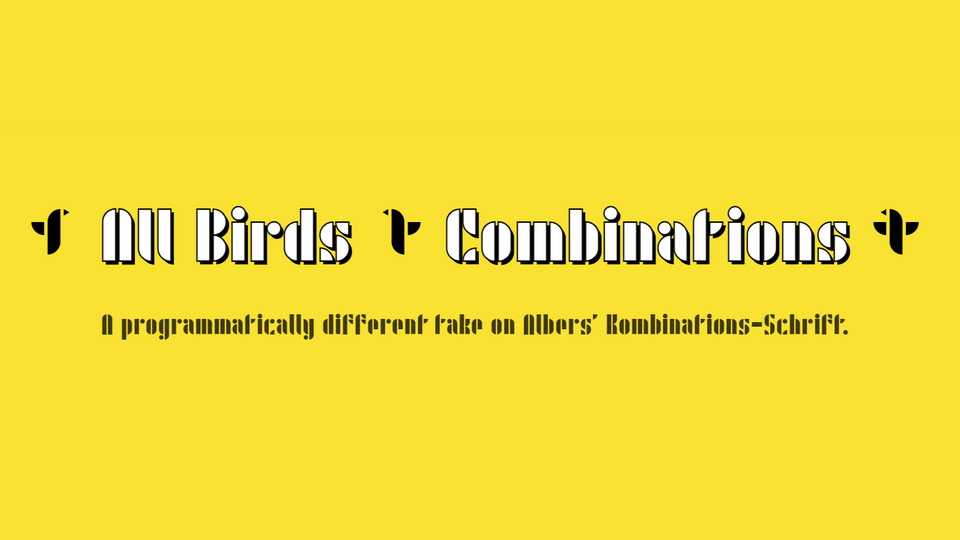
Download All Birds Combinations (ABC) font, a modular display typeface with 7 levels of compressed weights. ABC is a reinterpretation of Josef Albersʼ Kombinations-Schrift, from which the name, All Birds Combinations, is also derived.